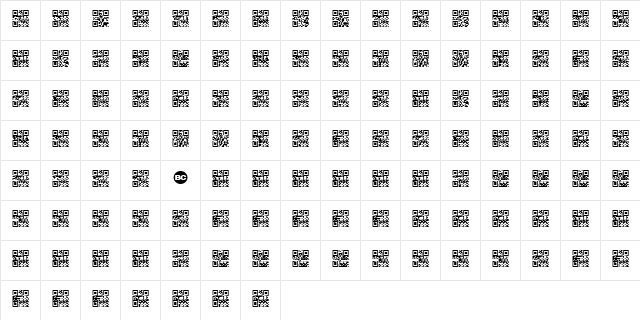
Complete Scan me QR glyph index. Displaying only characters natively supported by Scan me QR font.
Scan me is a composed and adaptable typeface that performs quietly and consistently across a wide range of design contexts.